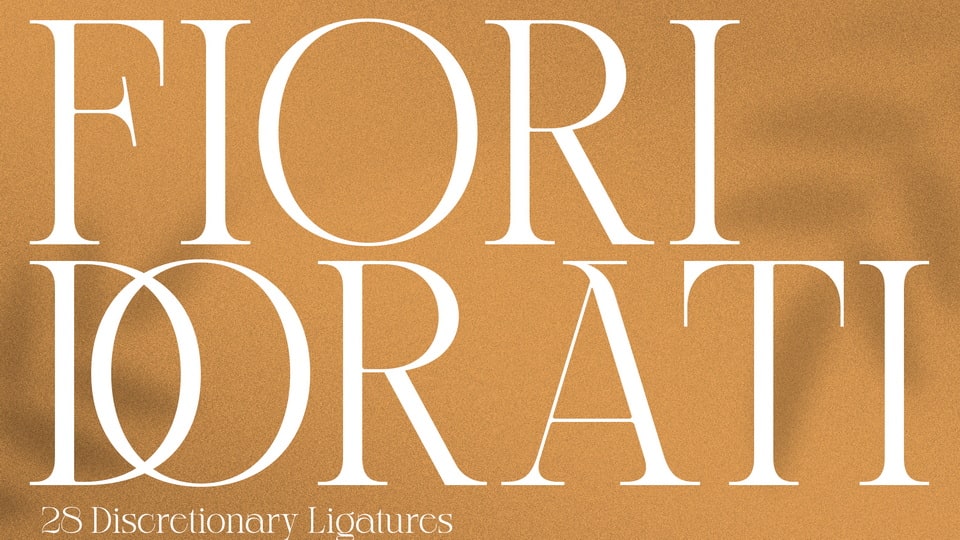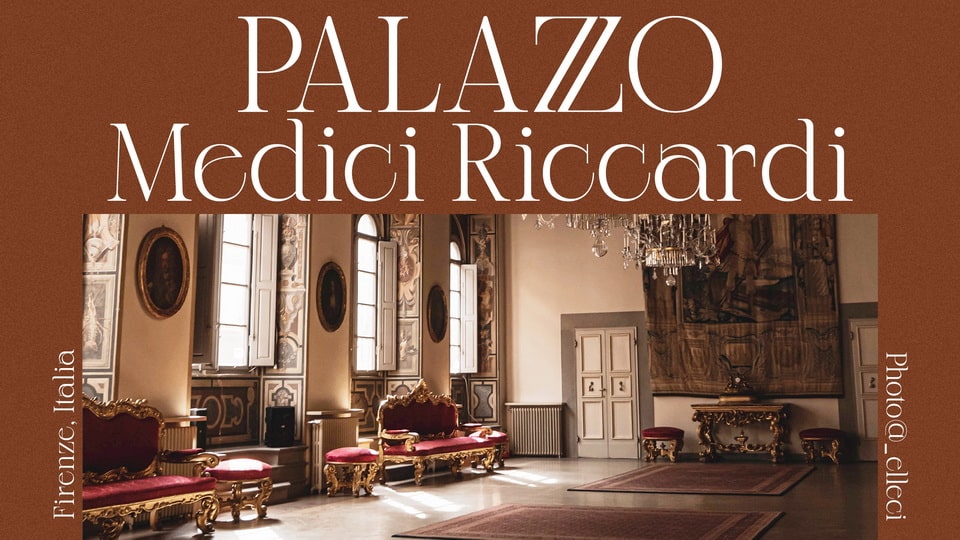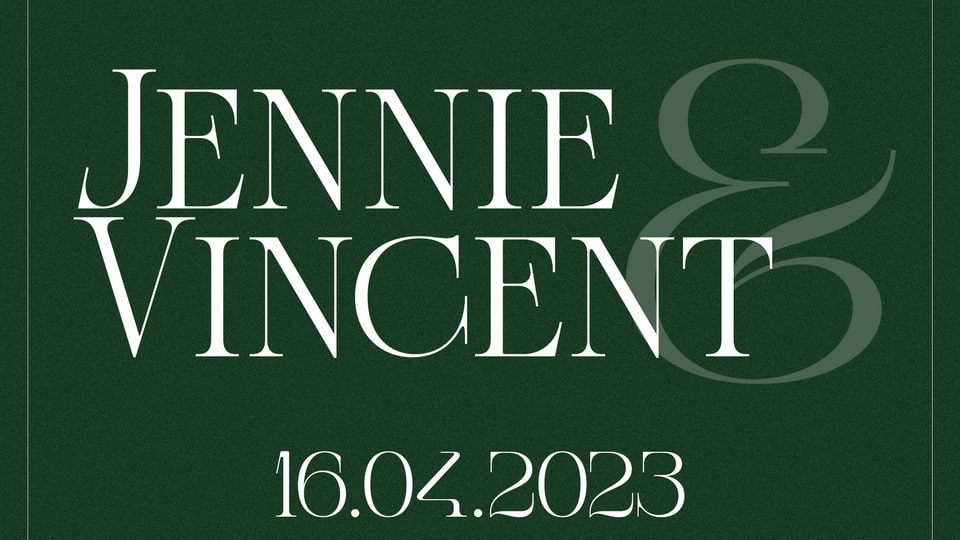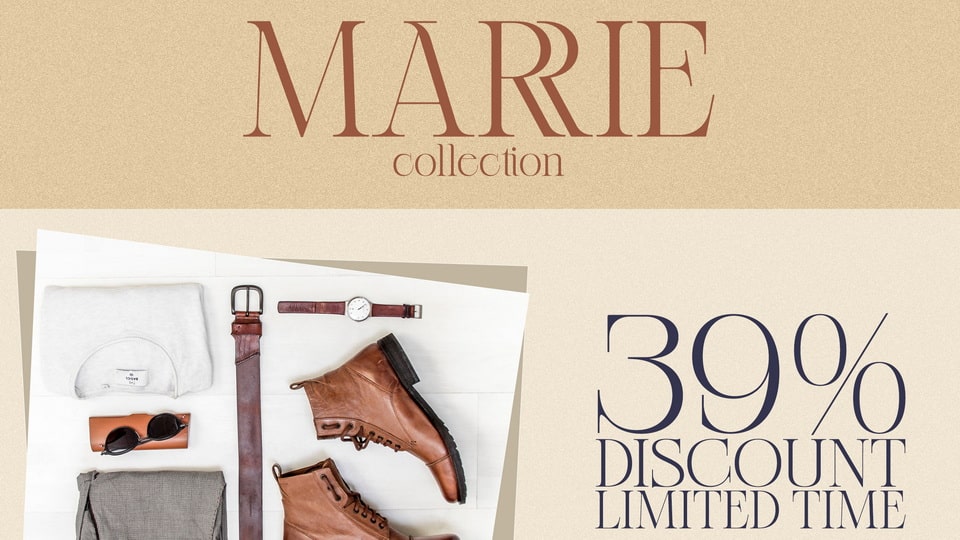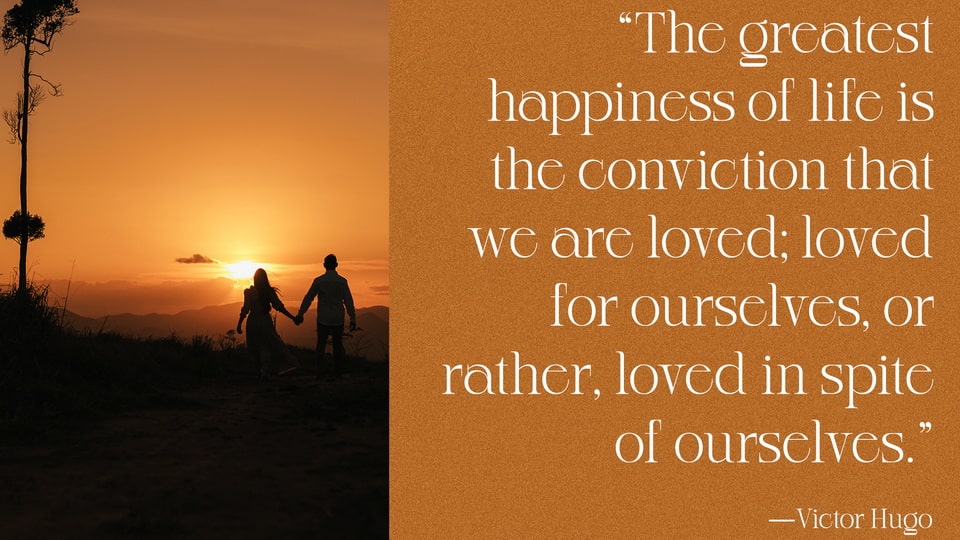
Fiori Dorati is an absolutely elegant serif font. This typeface includes beautiful stylistic alternates and discretionary ligatures. It will elevate a wide range of crafting ideas, from cards to branding, labels, and more.